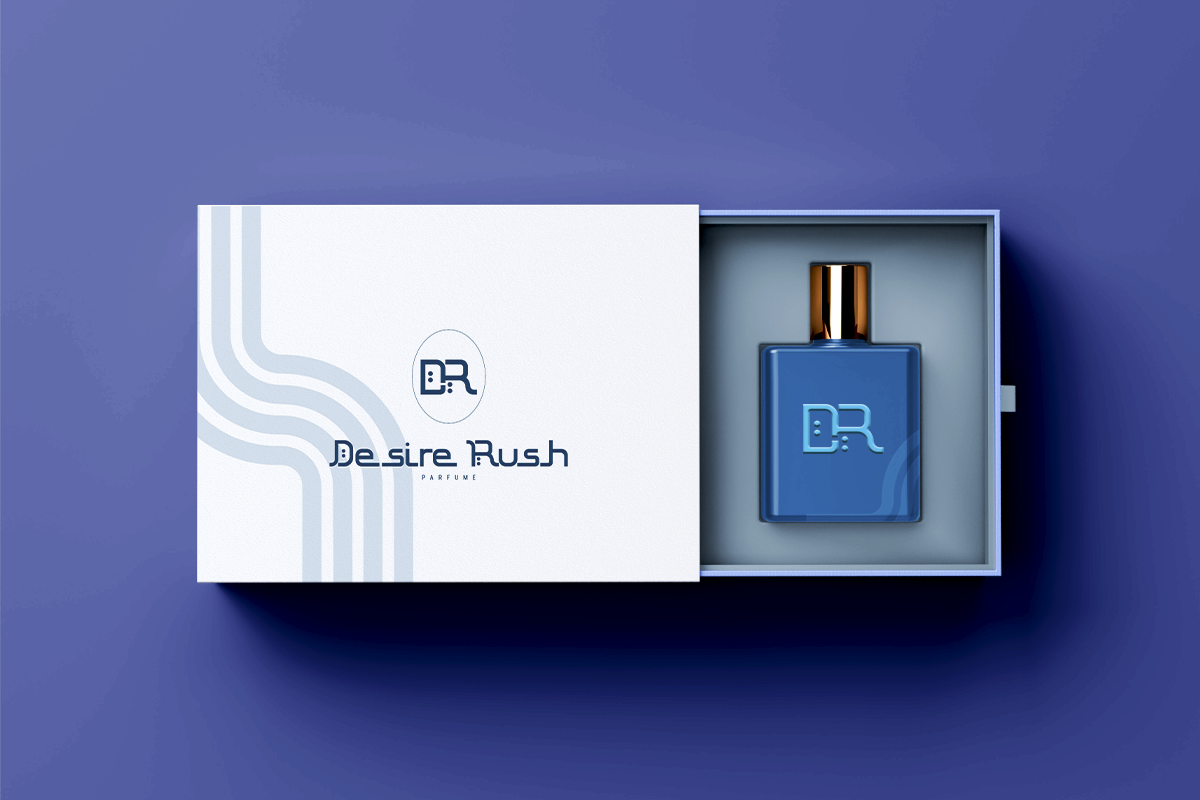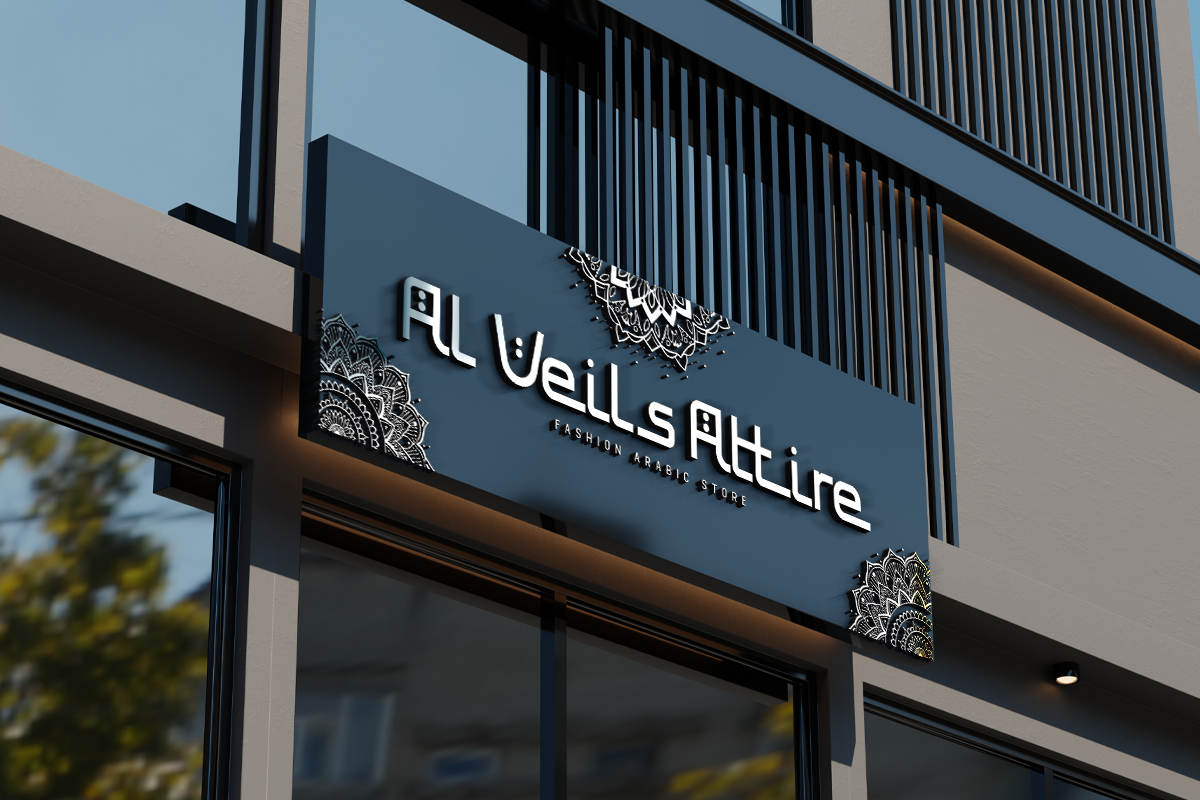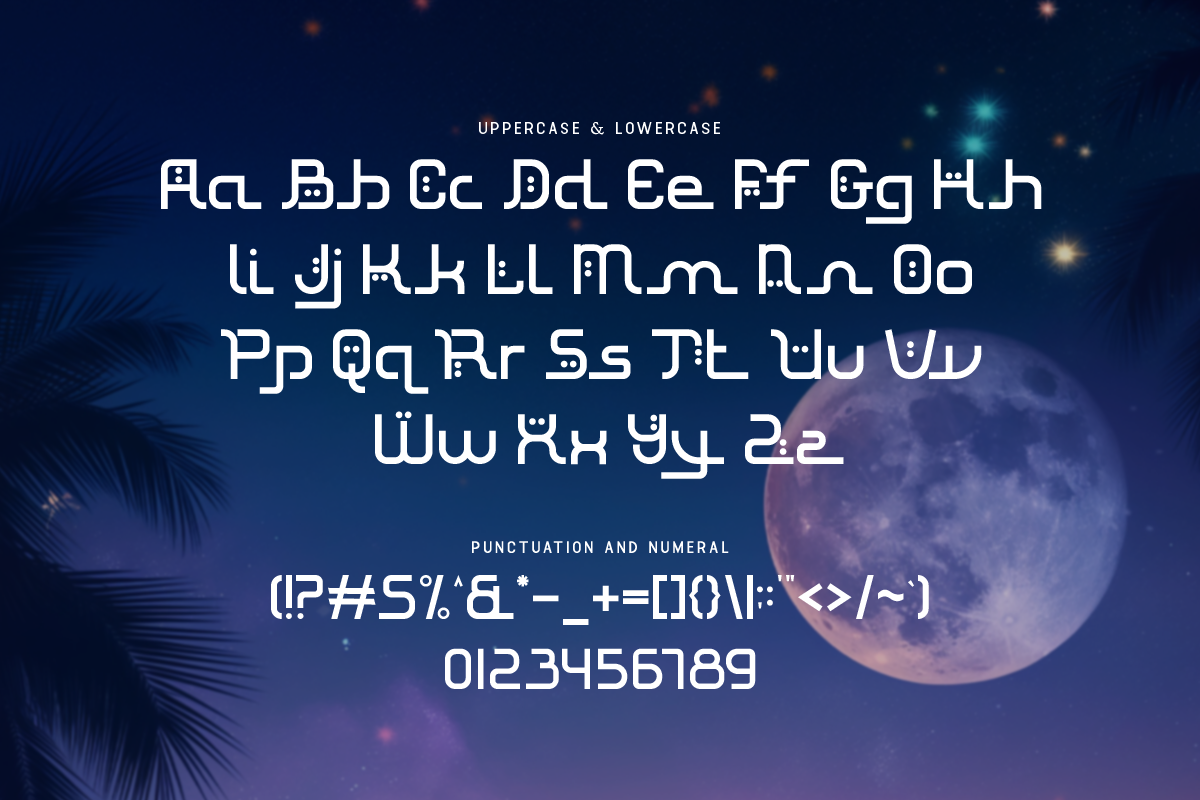
Ar-Raith A Modern Arabic Font is a type of Arabic modern font family. It is one of our display font collections. Ar-Raith A Modern Arabic Font that looks very artistic and has a modern look in its style. The beautiful shapes and simple design of the font add so much more to the font's aesthetic and modern impression. At the same time, these facts make Ar-Raith A Modern Arabic Font one of the best choices to put on modern lifestyle tools. Ar-Raith A Modern Arabic Font can be used to design graffiti, a mural, wall-paint art, skateboard art, or other types of modern designs. Artworks on clothing items or merchandise such as t-shirts, bags, or wall decorations can also use the Ar-Raith A Modern Arabic Font typeface as part of their design. The suitability of the Ar-Raith A Modern Arabic Font against many things shows that Ar-Raith A Modern Arabic Font is a font that must be taken into appeal and determine which font to use. Our Arabic modern font collection is compatible for use as Figma fonts, Canva fonts, Freepik Fonts, and Adobe Fonts. They also work as Windows Fonts and Apple Fonts. For your social media needs, you can use and install the fonts in our collection of brush typefaces to use as Instagram Fonts, Facebook Fonts, and Twitter Fonts.